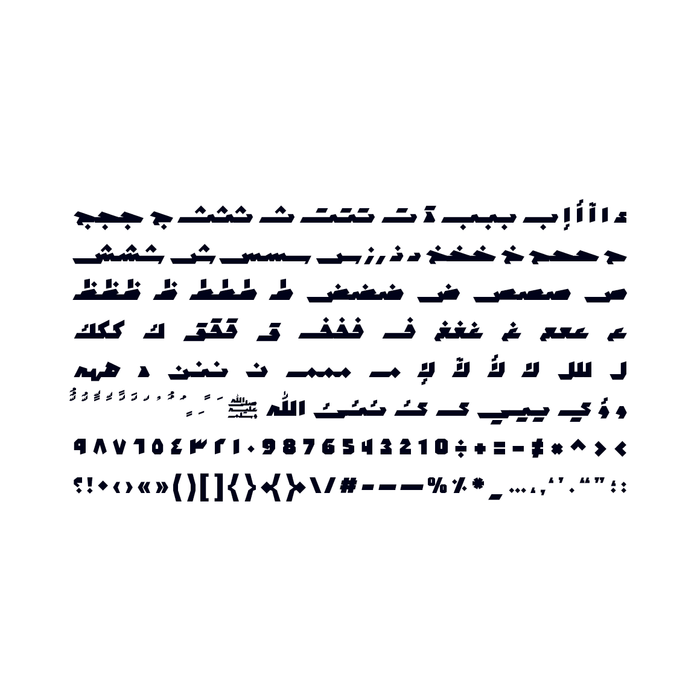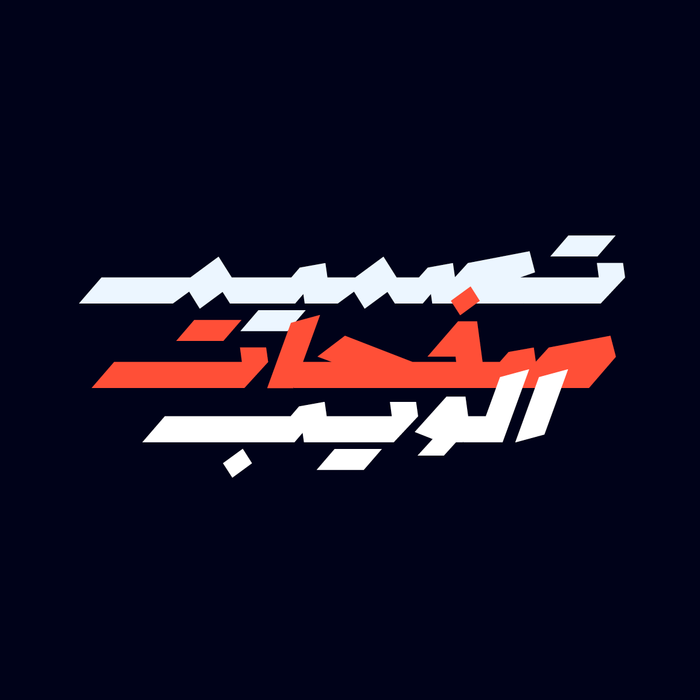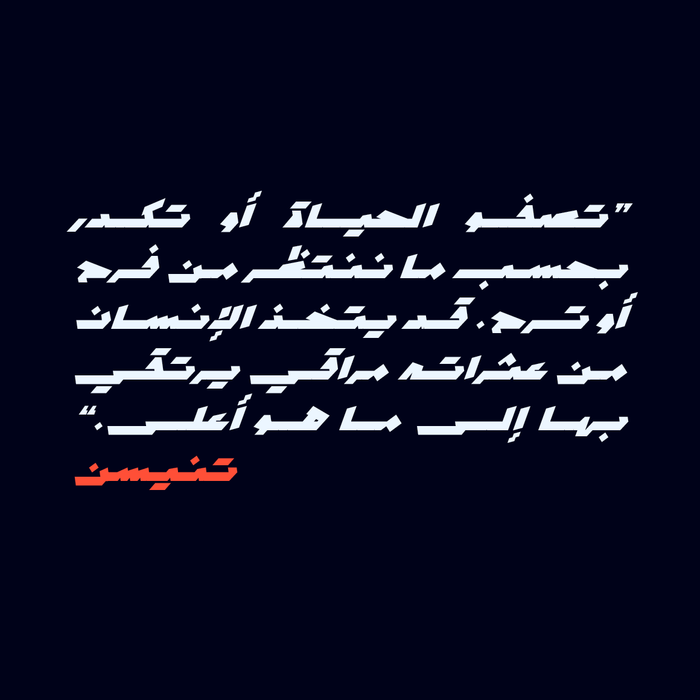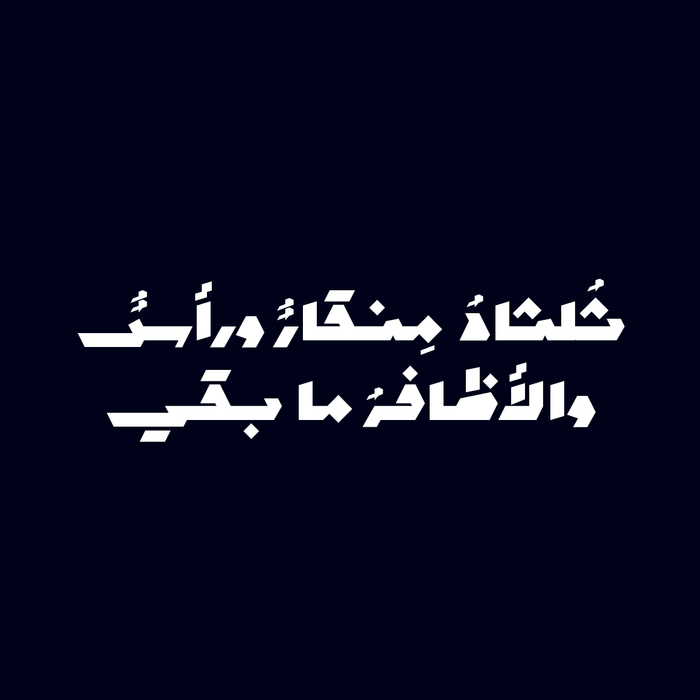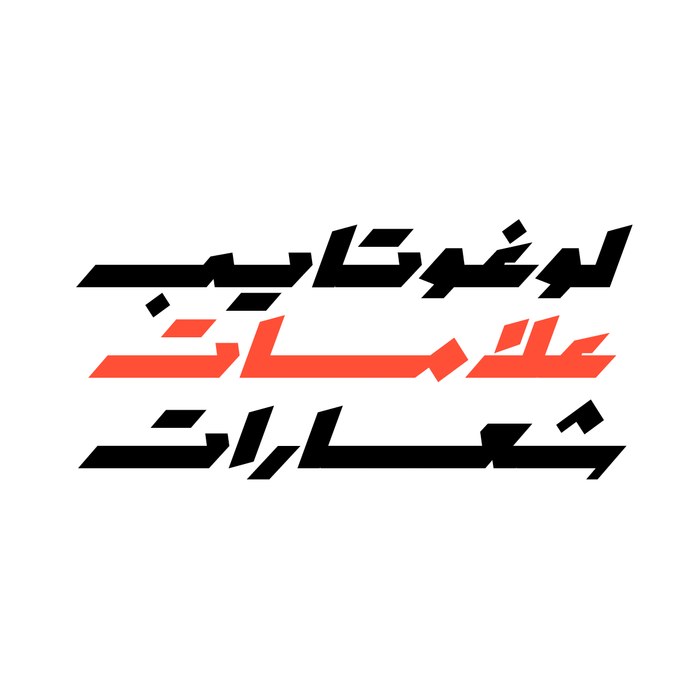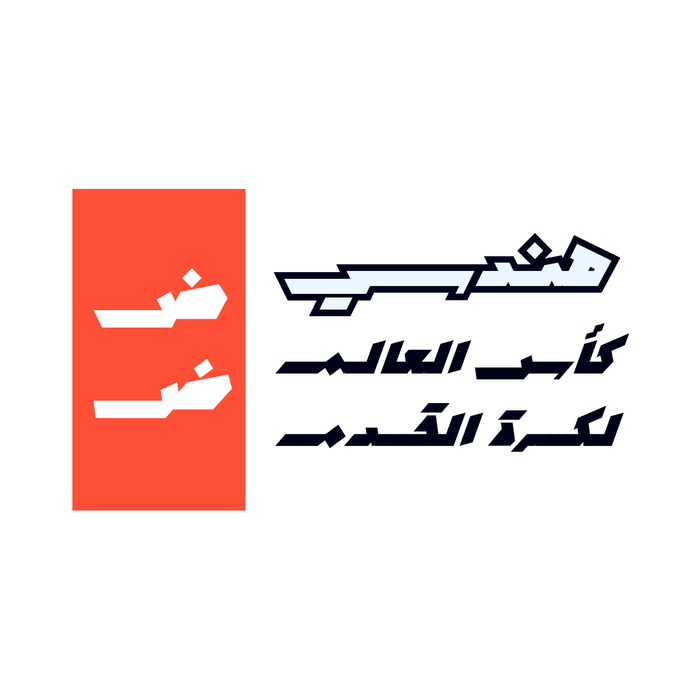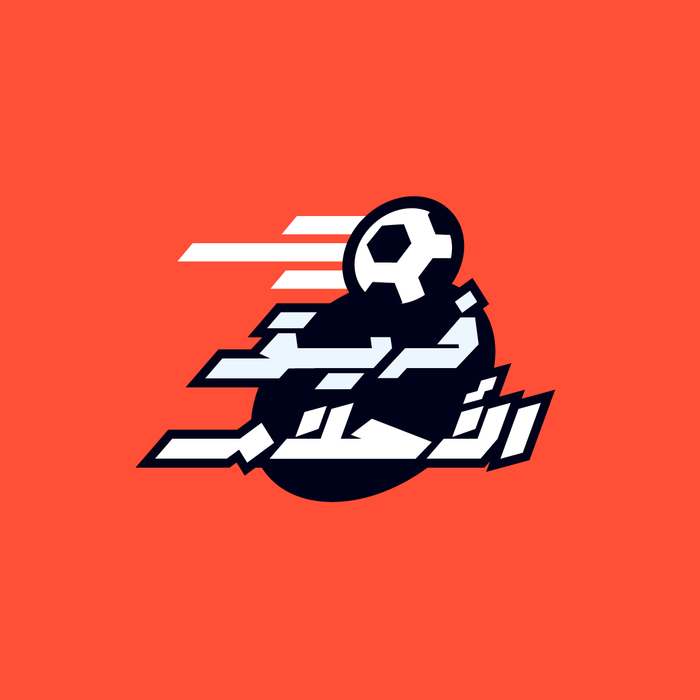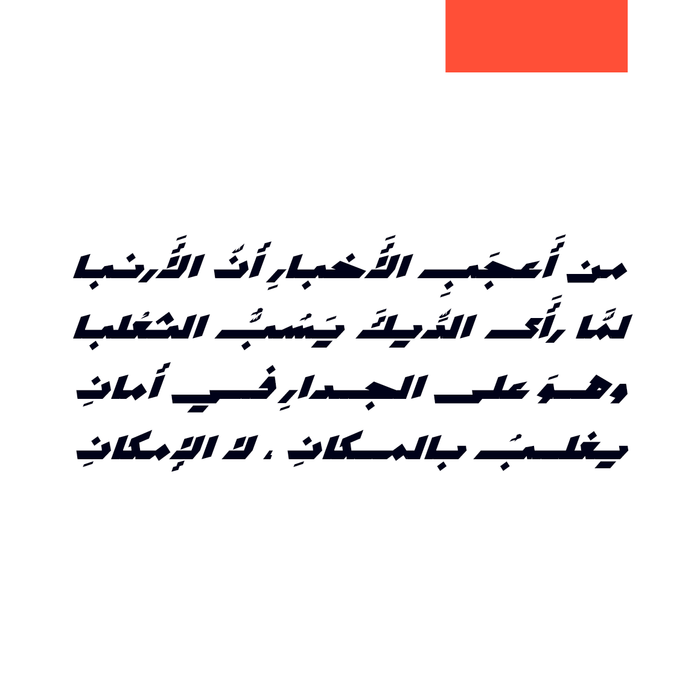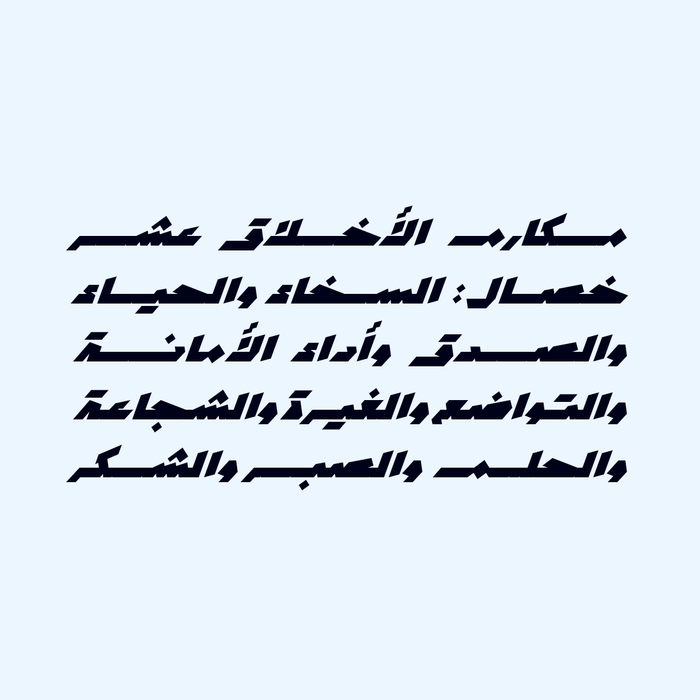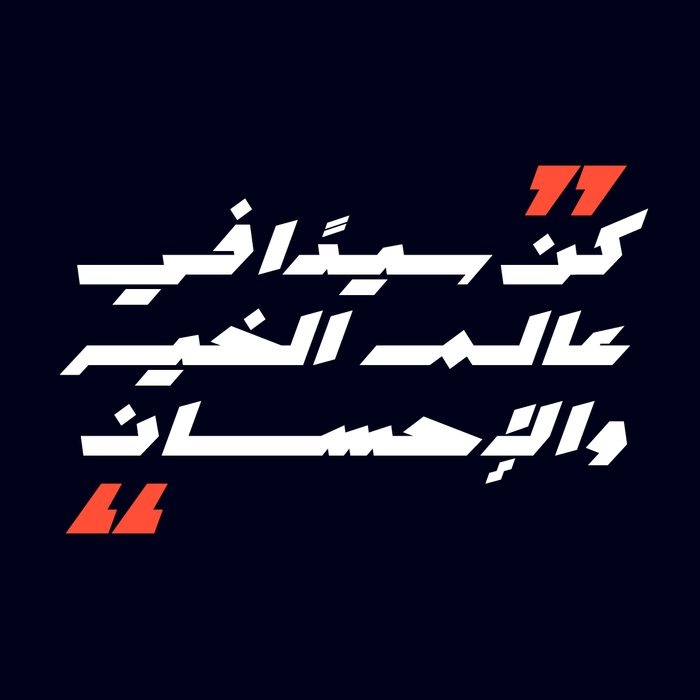
Mawzoon - Arabic Font
Mawzoon (which is the Arabic word for balanced) is an Arabic display font that is heavily inspired by the Ruq’ah script. Letter forms feature a solid geometric structure with edgy terminals which come in two styles (Normal and Oblique). Mawzoon suits a various range of creative projects including print, web, advertising and mobile applications.